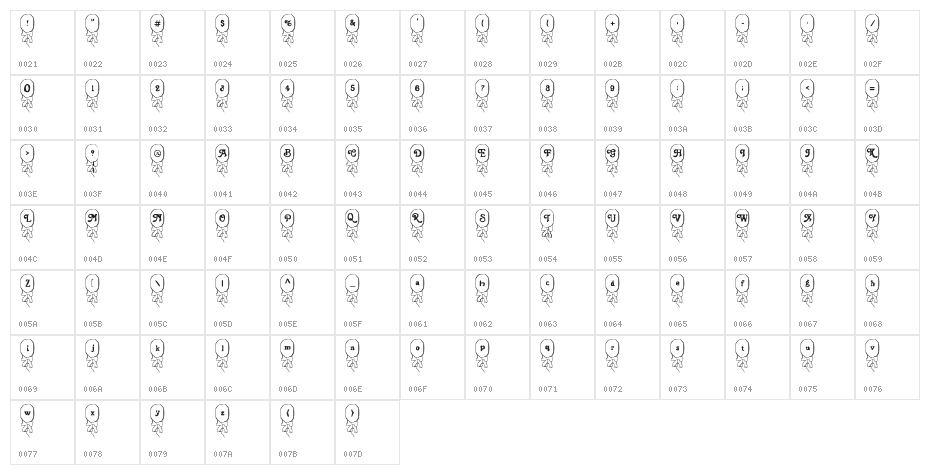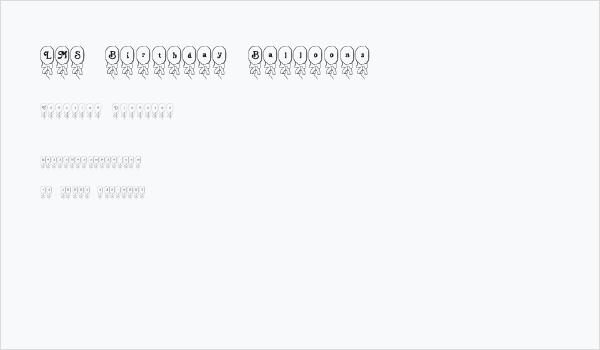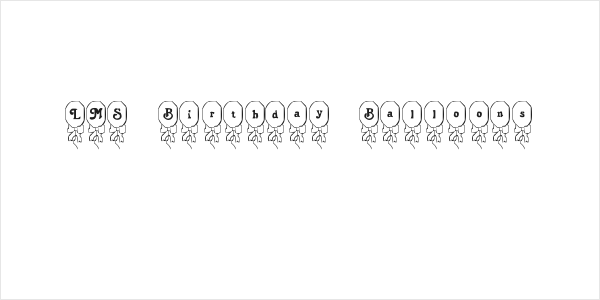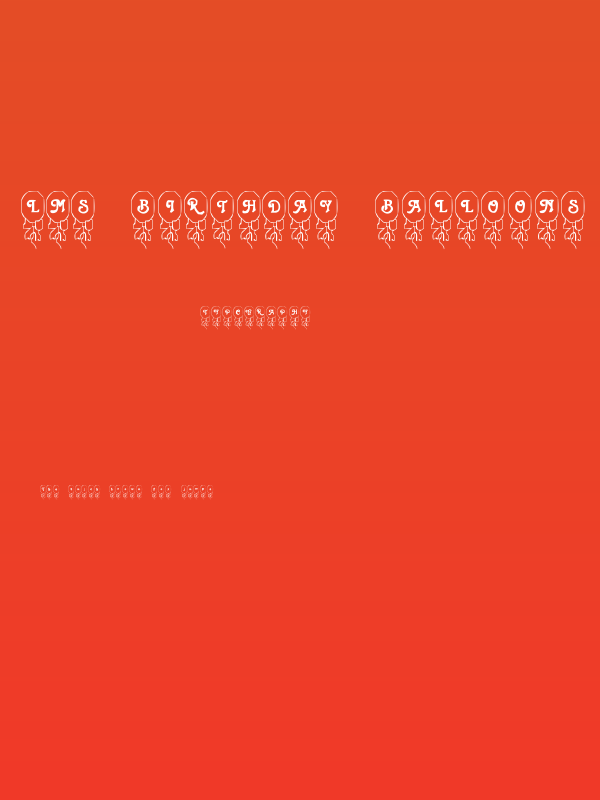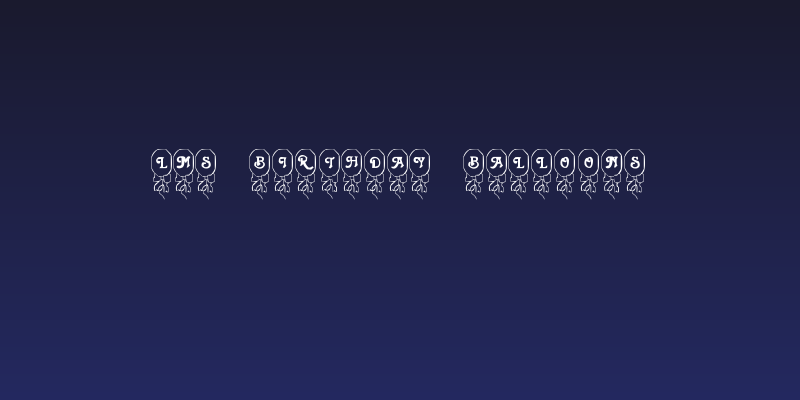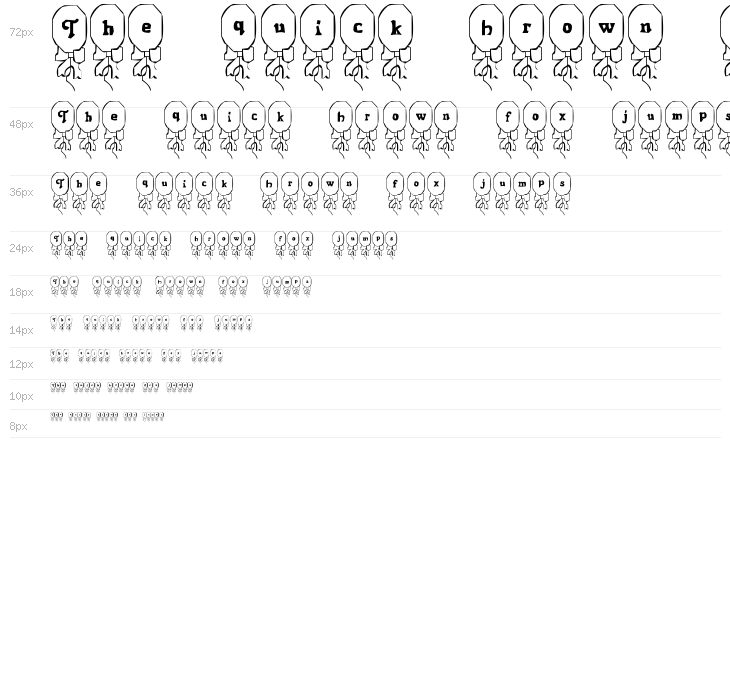
LMS Birthday Balloons Font
LMS Birthday Balloons Description
This playful and whimsical font features each character enclosed within a balloon shape, complete with a tied knot at the bottom, giving it a festive and celebratory appearance. The letters are bold and slightly rounded, enhancing the playful theme. The uppercase and lowercase letters maintain a consistent style, with a slight variation in size and formality. Numbers and special characters are also included, each fitting seamlessly into the balloon motif. The overall design is decorative and eye-catching, ideal for projects that require a fun and lively touch.
| Proposed Projects | Ideal for birthday invitations, party decorations, children's event flyers, and playful branding. |